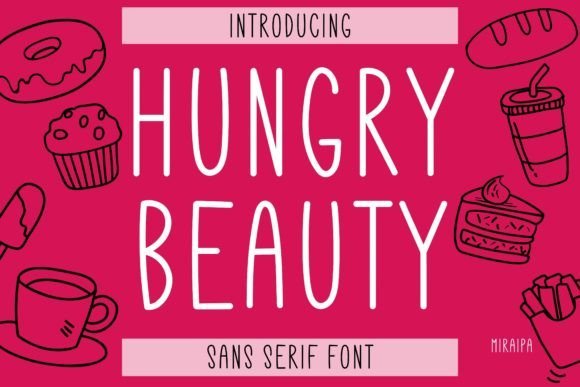
The Perfect Font for Your Next Design Project
That’s where Hungry Beauty Font comes in – a modern sans-serif font designed to make a statement. With its clean and simple design, it’s perfect for contemporary design, digital media, and advertising. Whether you’re creating a headline, body copy, or branding, Hungry Beauty Font is versatile enough to shine. Its stylish and eye-catching look makes it a valuable asset for designers looking to take their projects to the next level.
Hungry Beauty Font Key Features
- Unique Characteristics: Hungry Beauty Font features a bold, playful, and whimsical design, making it perfect for use in food and beverage branding, advertising, and packaging.
- Style Options: The font includes multiple style options, including Regular, Bold, Italic, and Bold Italic, allowing for a range of creative possibilities.
- Language Support: Hungry Beauty Font supports a wide range of languages, including Latin-based languages, making it a versatile choice for global branding and design projects.
Hungry Beauty Font Review
Overall, I was excited to dive into the Hungry Beauty Font, and I’m happy to share my honest thoughts. Here’s what I liked and didn’t like about this font.
- Unique and eye-catching design: The Hungry Beauty Font is truly one-of-a-kind, making it perfect for adding a touch of whimsy to your designs.
- Playful and fun vibe: This font screams fun, which is great for projects that need a lighthearted and energetic feel.
- Great for titles and headings: The Hungry Beauty Font is perfect for creating attention-grabbing titles and headings that draw the reader’s eye.
- Not suitable for body text: The font’s playful nature makes it difficult to read as body text, which may be a limitation for some designers.
- Limited character set: I found that the font doesn’t come with a full character set, which may be a concern for designers who need to use it for extended text.
- May be too flashy: While the font’s uniqueness is a strength, it may be too flashy for some designs, so use it sparingly.
The Hungry Beauty Font is a fun and playful addition to any designer’s toolkit. While it may have some limitations, its unique design and fun vibe make it perfect for projects that need a little extra oomph. Just be sure to use it sparingly and in the right context to avoid overwhelming your design.
Hungry Beauty Font: A Practical Application Guide
The Hungry Beauty Font is ideal for creating eye-catching headlines and titles. Use it to add a touch of elegance and sophistication to your designs. Some common use cases include:
- Beauty and wellness marketing
- Fashion and lifestyle design
Remember to adjust the font size and style to suit your design needs and ensure readability.